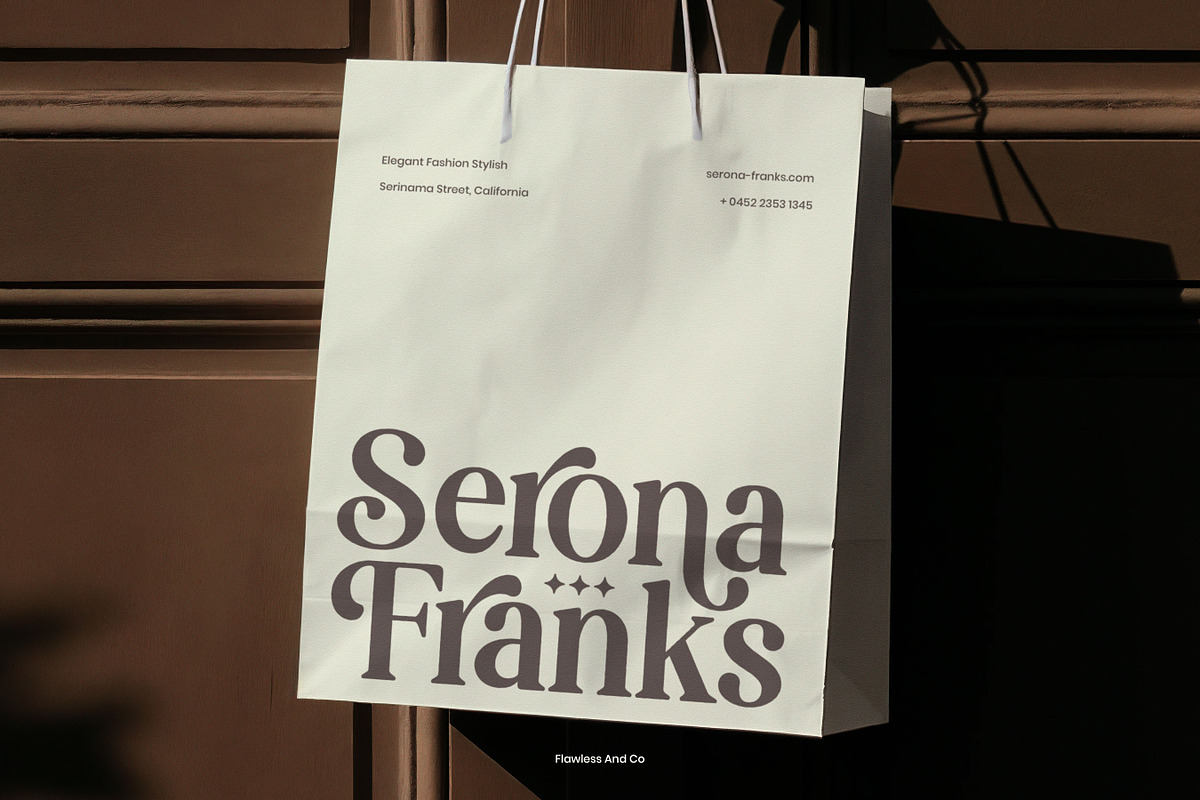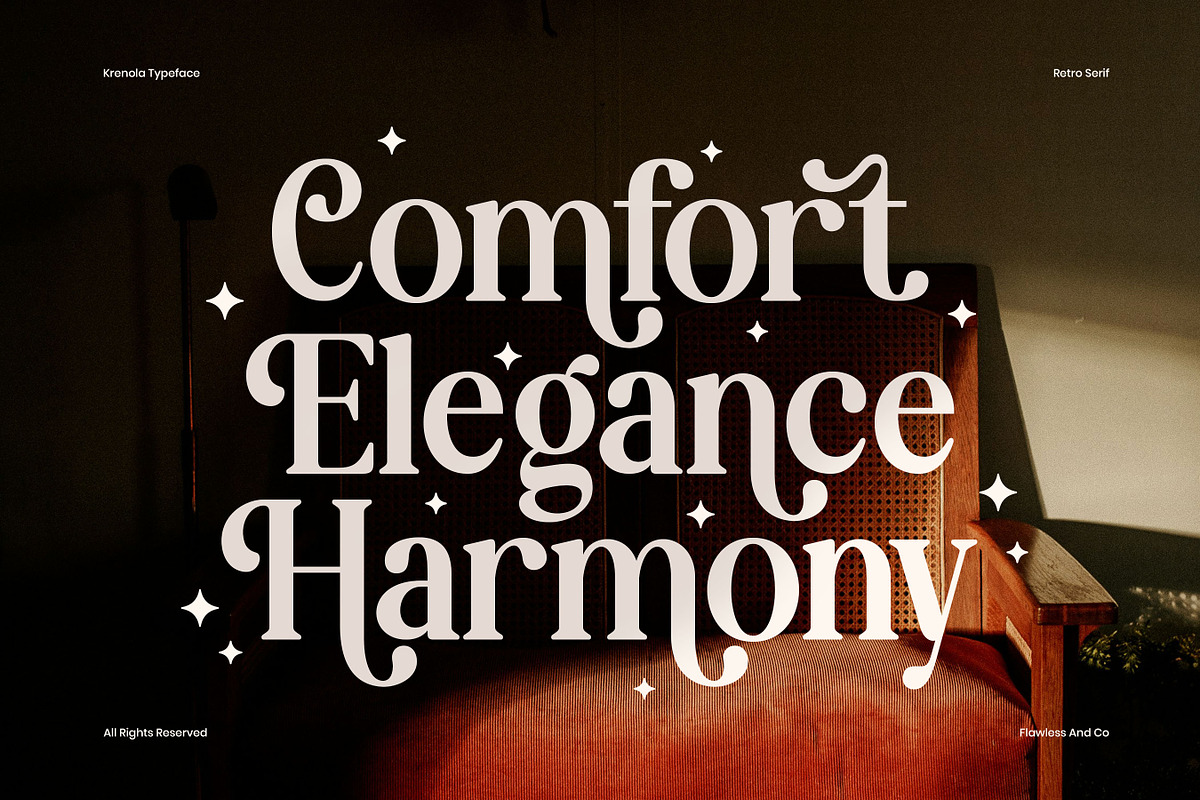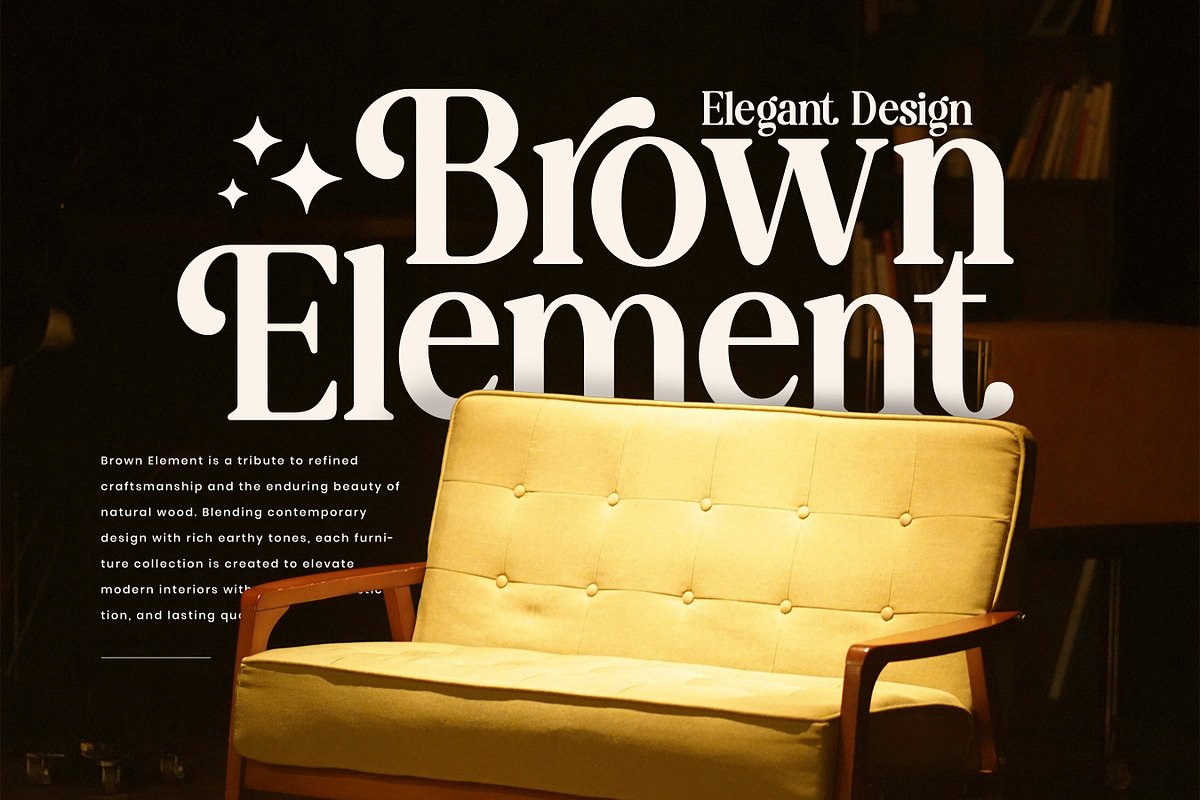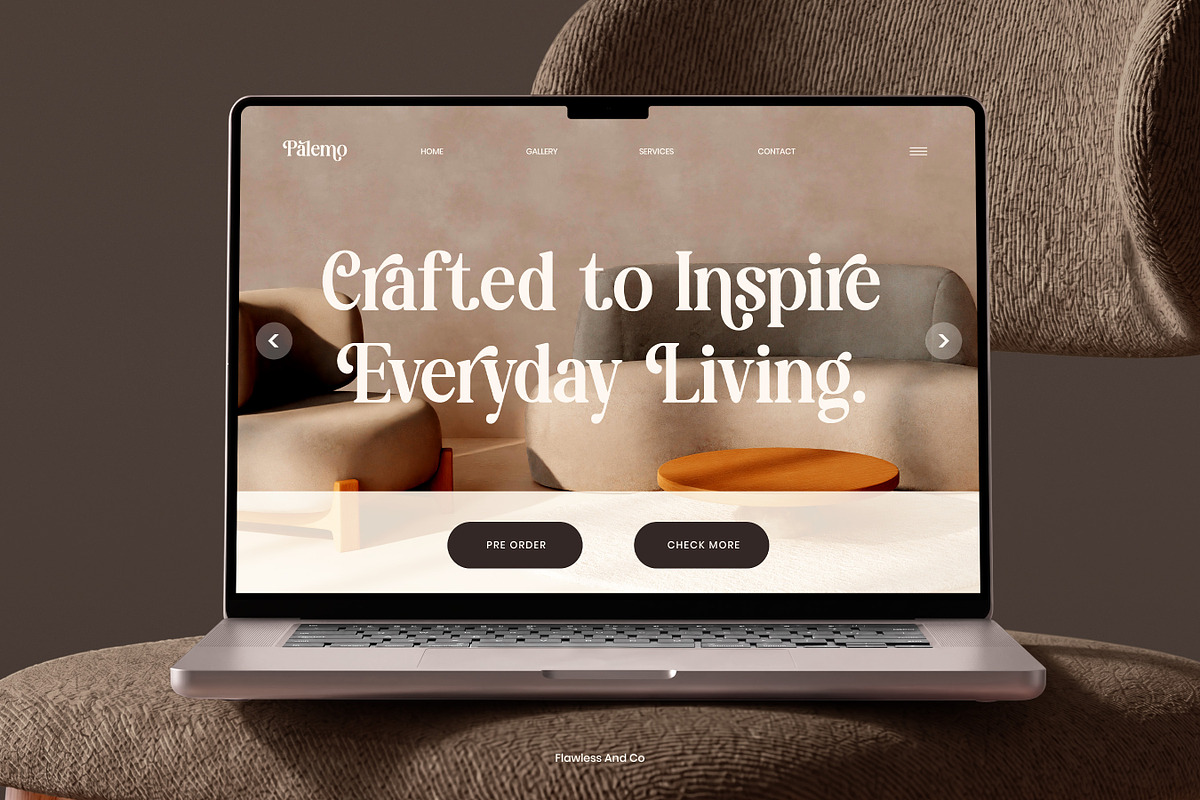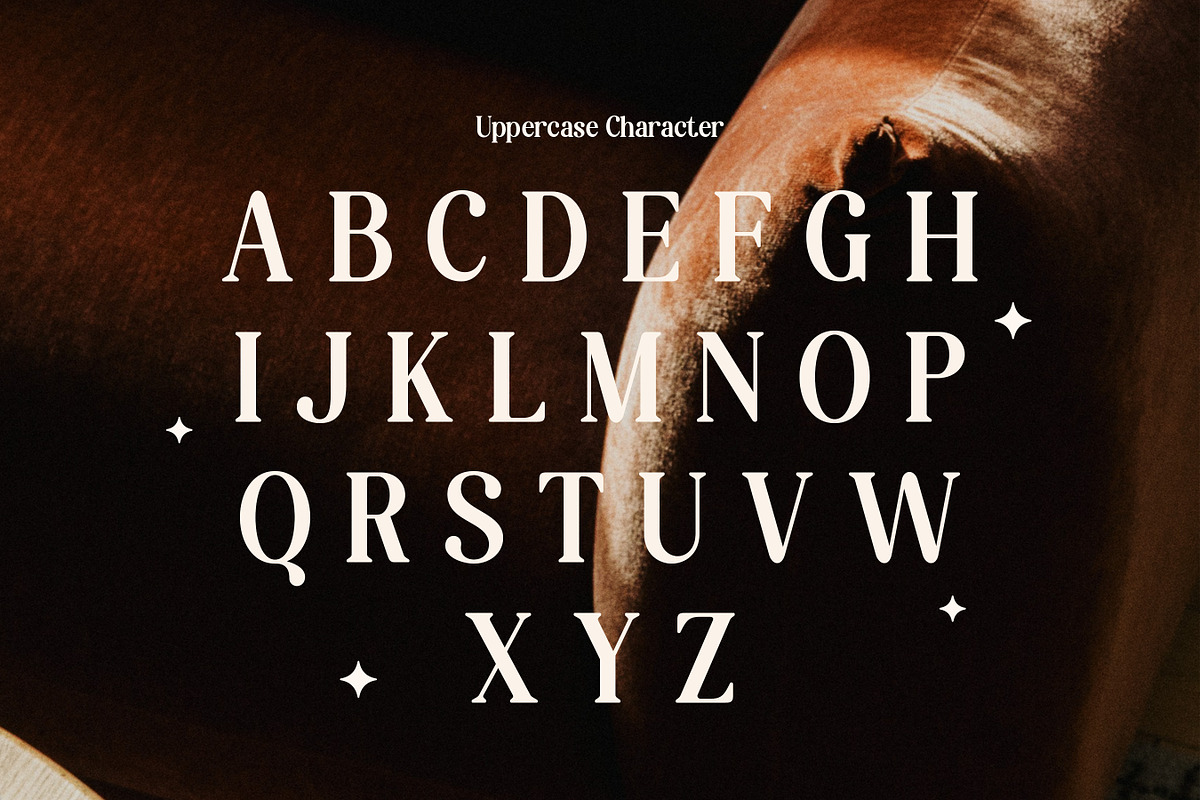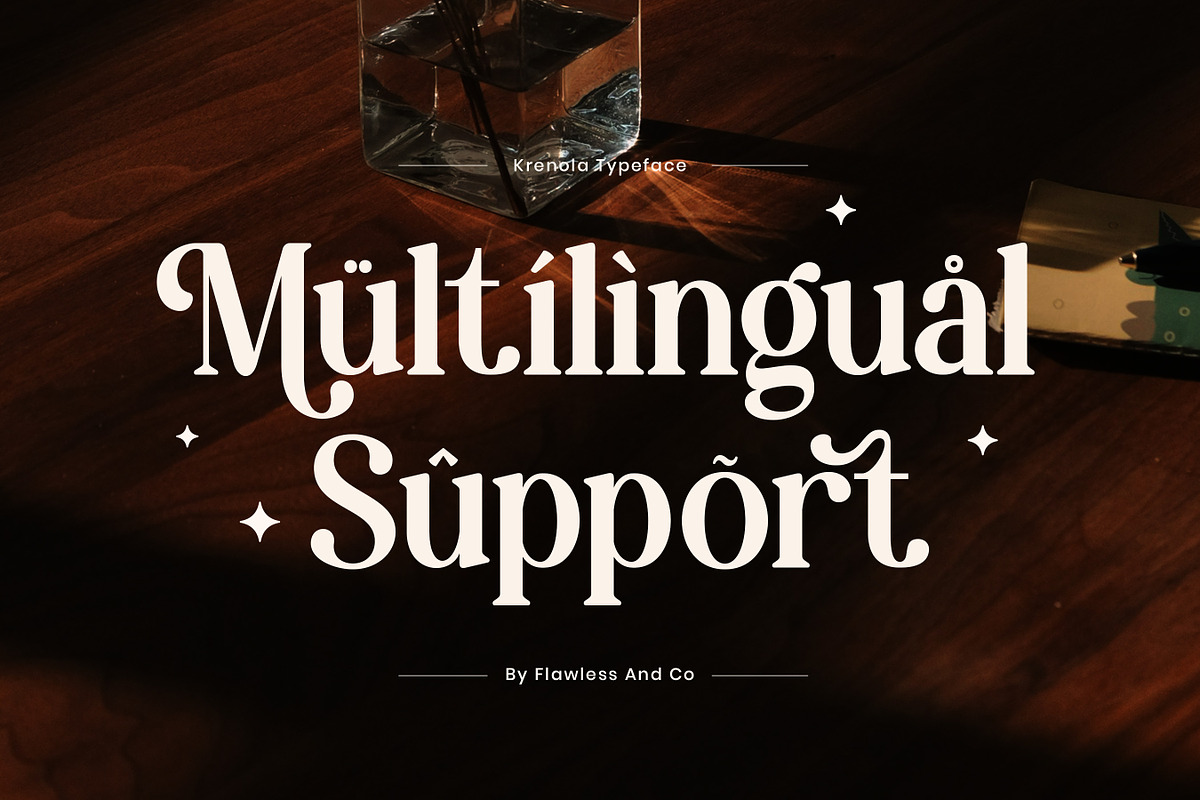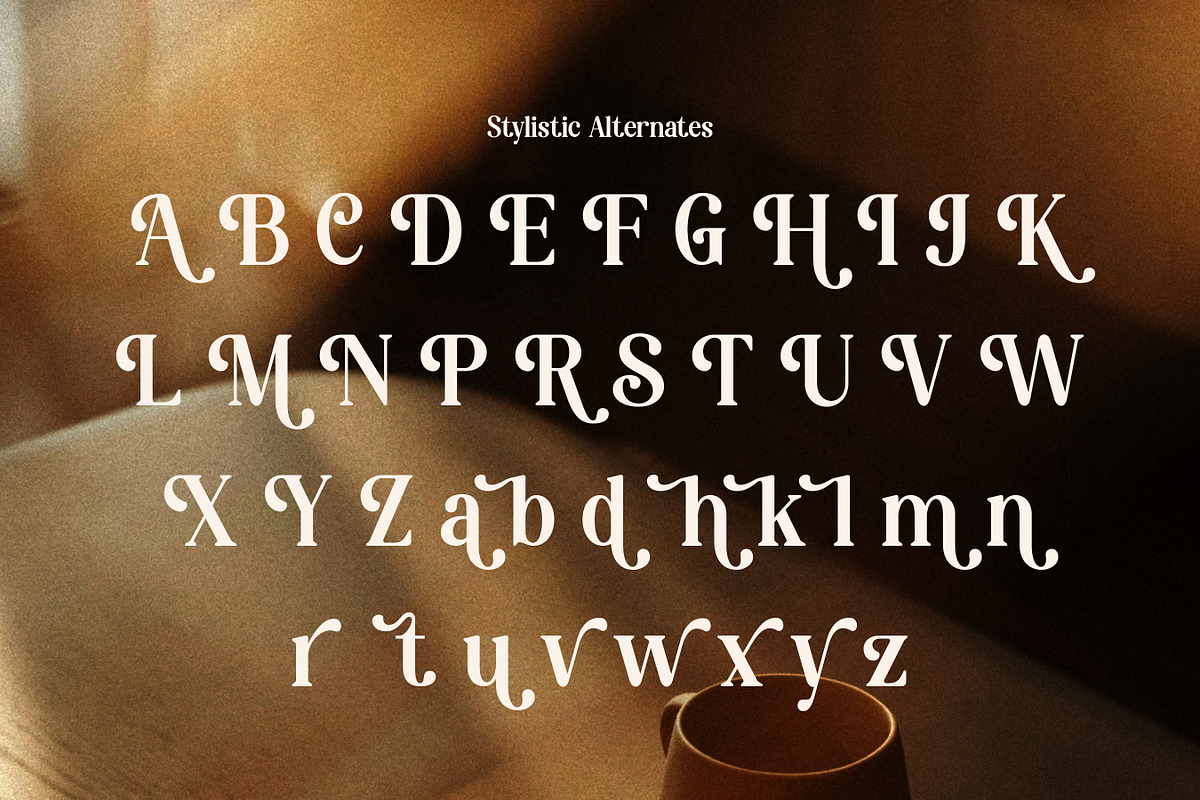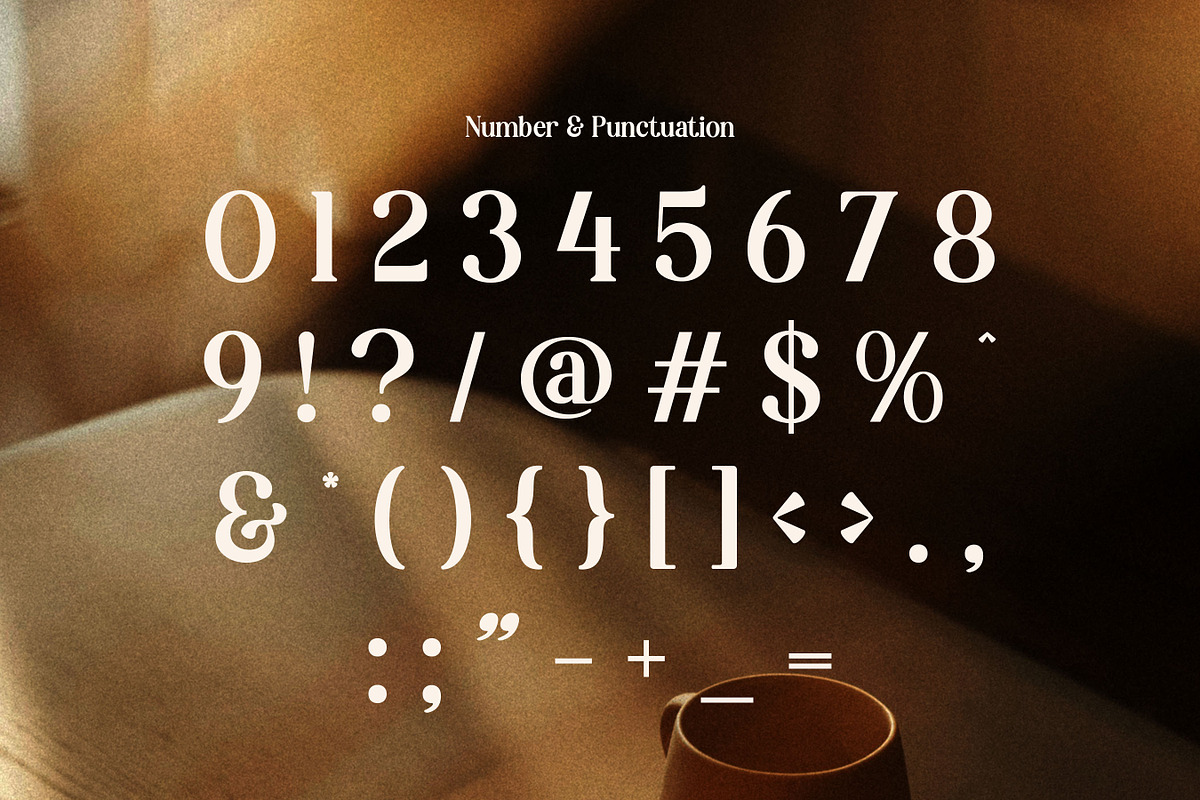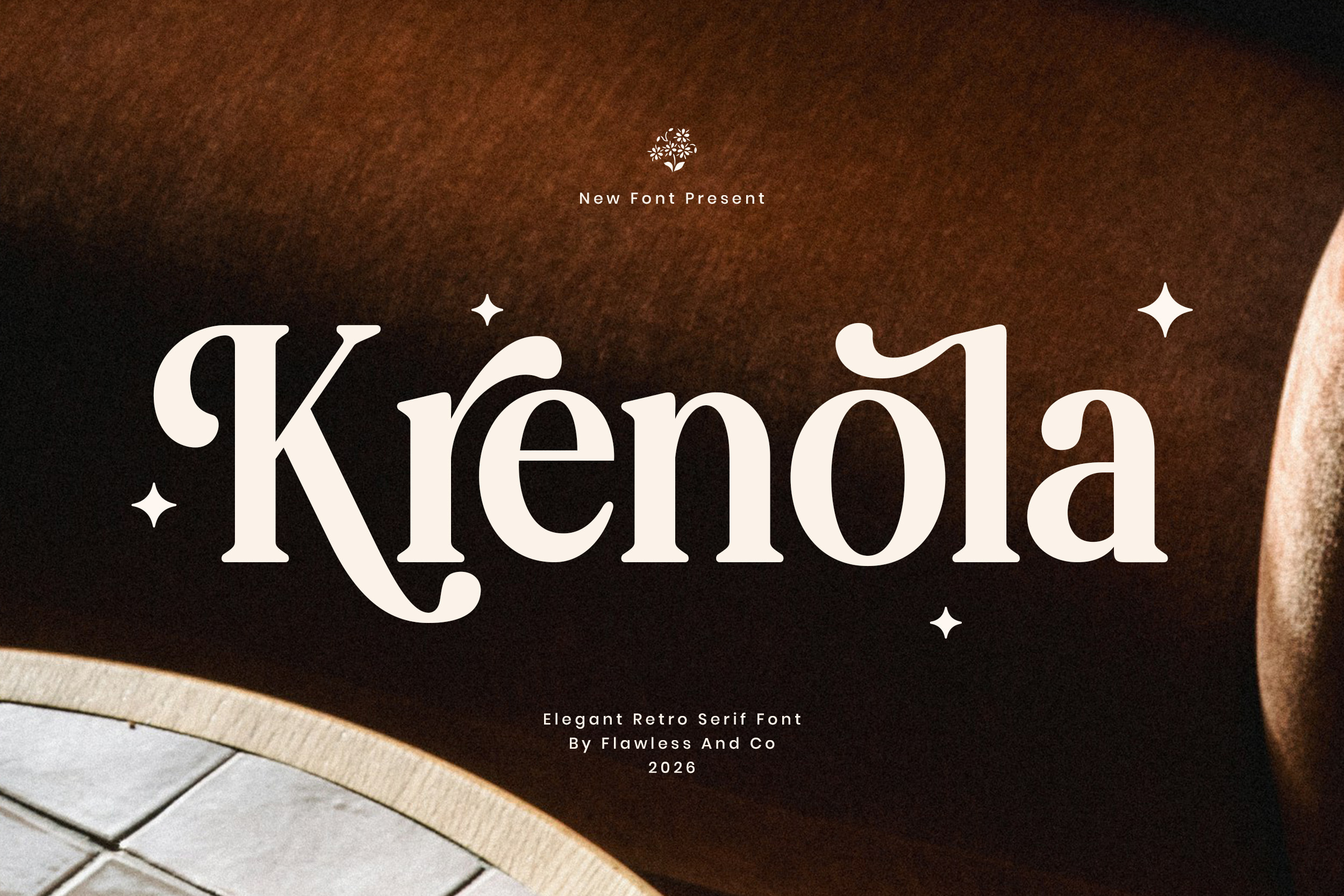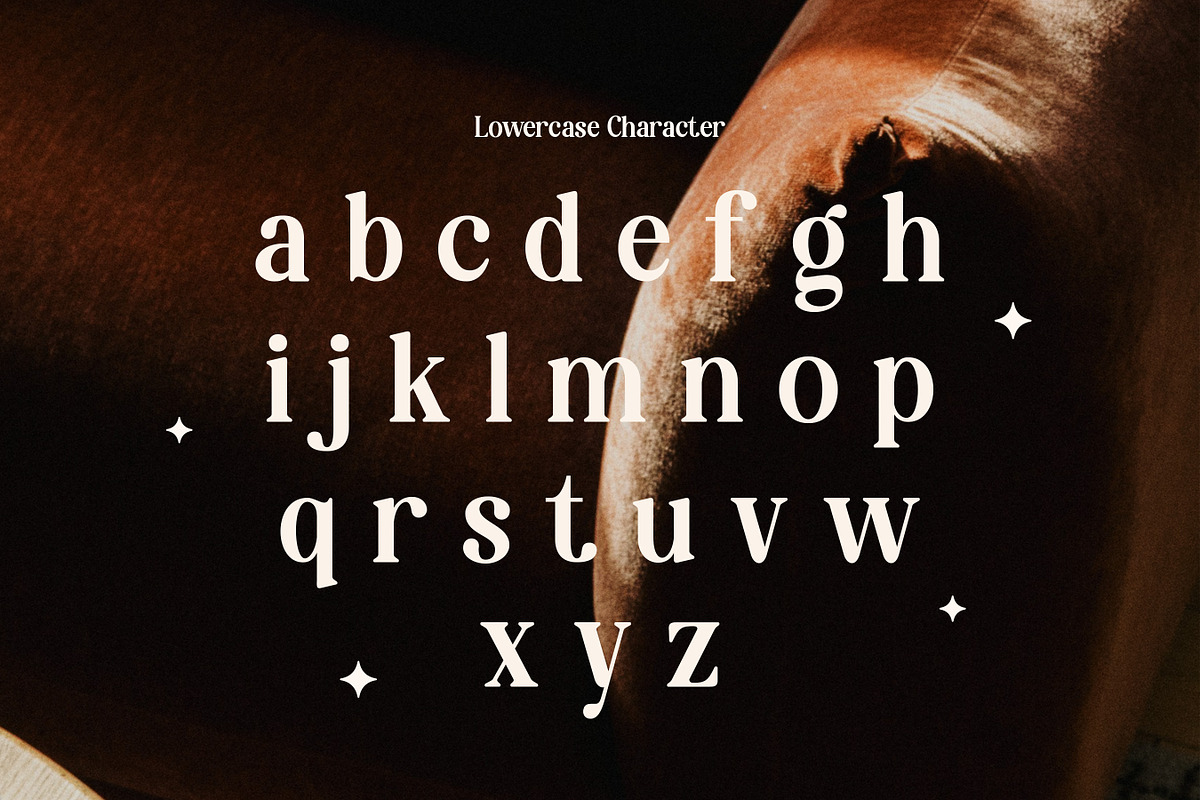
Krenola - Elegant Retro Serif Font
Krenola is an elegant retro serif font designed to celebrate timeless elegance with a distinctive vintage flair. Featuring refined serif shapes, graceful curves, and beautifully crafted retro-inspired letterforms, Krenola creates a harmonious balance between classic charm and modern sophistication. Its stylish appearance brings a sense of luxury and nostalgia, making it a perfect choice for designs that demand both character and refinement.
Alternates & Ligatures
Who Should Use Krenola?
Krenola is perfect for designers, creative agencies, boutique businesses, and premium brands looking for a retro serif font with an elegant and sophisticated personality. It’s especially suitable for projects that require classic typography with a refined vintage touch.
Suitable For:
Luxury and boutique branding
Logo and visual identity design
Editorial and magazine headlines
Fashion and beauty campaigns
Packaging and premium product labels
Wedding invitations and stationery
Social media and promotional content
Elegant vintage typography